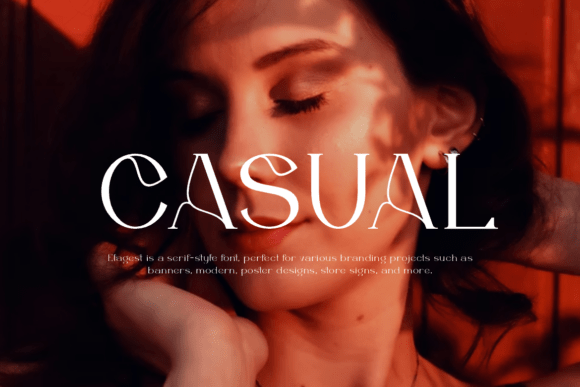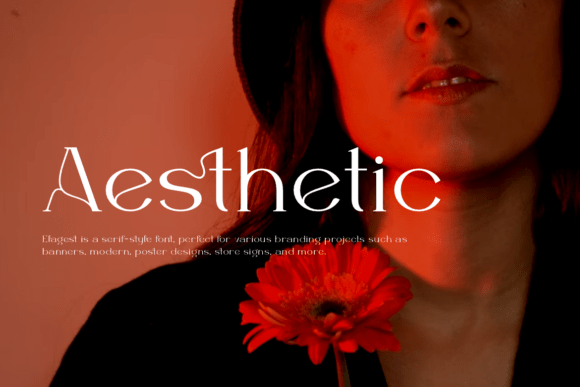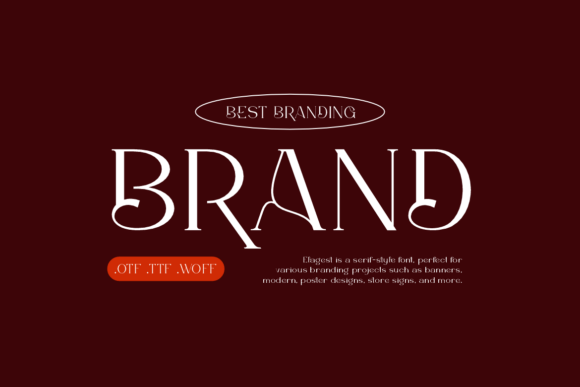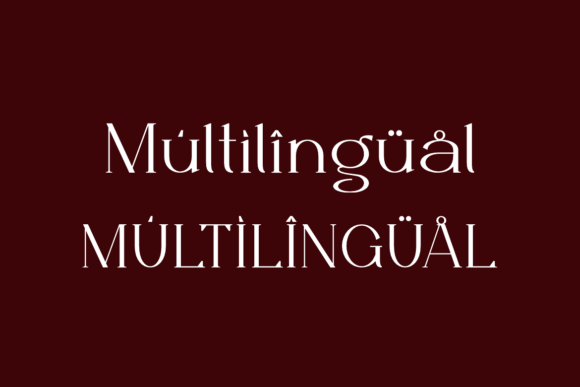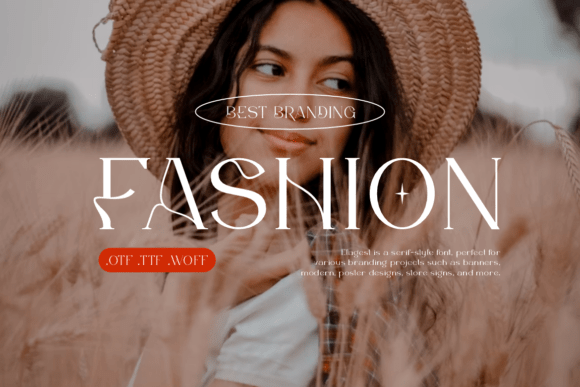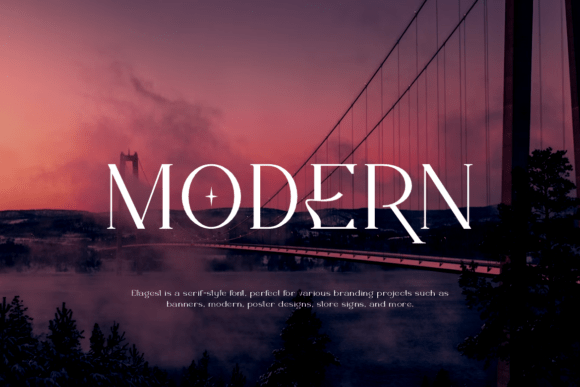
Introduction to Elagest Font
Have you ever found yourself staring at a blank canvas, desperately searching for the perfect font to bring your creative project to life? It’s a moment we’ve all been through – the one where the entire design relies on that one, elusive typeface that just clicks. For designers, this moment can be a game-changer, and that’s exactly what we’re here to talk about – the Elagest Font.
Elagest Font is a premium serif and display typeface that offers a wide range of themes and styles to suit any design need. Whether you’re working on a high-end branding project or a free download for a personal blog, this font is sure to elevate your design game. With its authentic and sophisticated look, Elagest Font is the perfect addition to any creative project.
As a valuable resource for designers, Elagest Font provides a transparent background and high-quality design that’s sure to impress. Whether you’re a seasoned pro or just starting out, this font is an essential tool to have in your design arsenal.
Key Features of Elagest Font
- High-quality design resource for creative projects, ideal for use in logos, branding, and typography.
- Unique characteristics: Elagest Font features a modern, elegant design with clean lines and precise typography.
- Perfect for use in digital and print media, including websites, social media, business cards, and brochures.
Honest Review: Elagest Font
I recently stumbled upon the Elagest Font while searching for a design resource to enhance my creative project. I was drawn to its sleek and modern aesthetic, which I thought would be perfect for a minimalist design.
- ✨ High-quality font: The Elagest Font is crisp and clear, making it ideal for printing or digital use.
- ✨ Transparent background: The font’s transparent background allows for seamless integration with other design elements.
- ⚠️ Limited character set: Unfortunately, the Elagest Font only includes a limited character set, which may not be suitable for complex design projects.
- ⚠️ No bold or italic options: I found that the font lacks bold and italic options, which can be a drawback for designers who require more flexibility.
Overall, I’m impressed with the Elagest Font’s potential, but I think it’s essential to consider its limitations before using it for a creative project. With some adjustments, it could be a fantastic addition to any designer’s toolkit.
The Elagest Font is a versatile design resource ideal for various creative projects. It offers a high-quality, free download with a transparent background, making it perfect for graphic designers and artists.
Use the Elagest Font in combination with other high-quality design resources for a professional look.
Experiment with different font sizes and styles to create visually appealing designs.
The Elagest Font is ideal for:
Graphic design projects.
Print materials such as business cards and brochures.
Digital designs such as social media graphics and website headers.